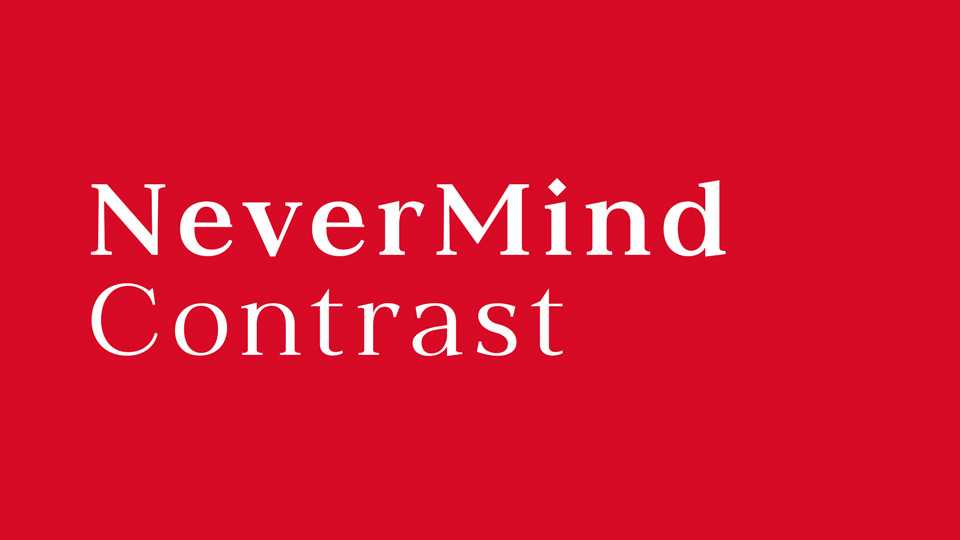
Download Nevermind Contrast font, a versatile serif typeface that seamlessly merges timeless sophistication with contemporary edge. Modern and elegant, it can be used for all types of communication.
Designer: XMind Ltd.